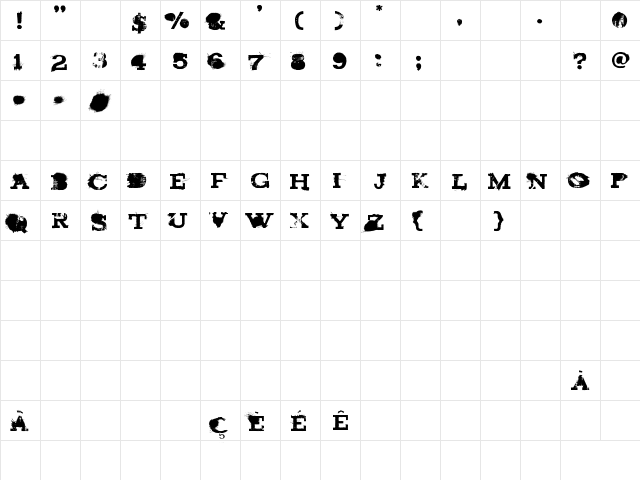
brand new burn Regular
Design Context for brand new burn Typeface
brand new burn is a composed and adaptable typeface that performs quietly and consistently across a wide range of design contexts.